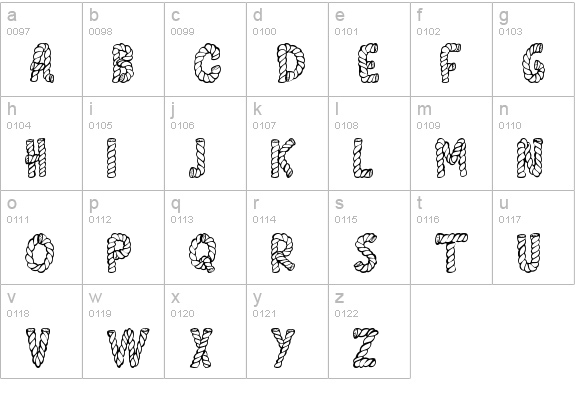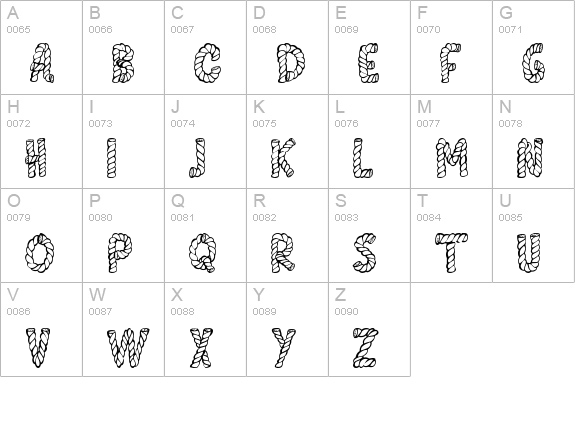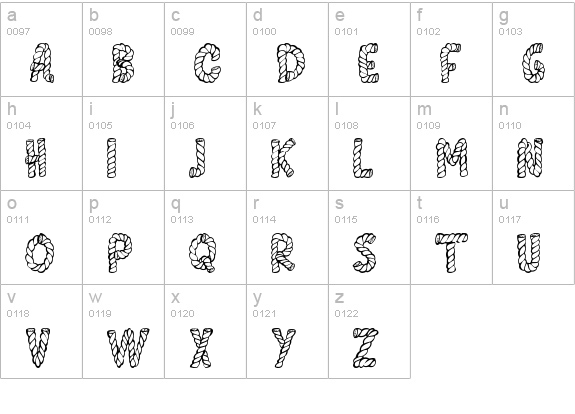
AlphaRope Font Details
Introducing AlphaRope font, a unique and eye-catching typeface that is sure to make your designs stand out. This font features a stylish and modern design with a touch of playfulness, making it perfect for a wide range of projects. With its bold and distinctive lettering, AlphaRope is ideal for branding, advertising, posters, logos, and more. What's even better is that AlphaRope font is completely free to download at FontsMarket.com. Yes, you read that right! You can get your hands on this amazing font at no cost, allowing you to add a touch of creativity to your projects without breaking the bank. So why wait? Head over to FontsMarket.com now and start using AlphaRope font to take your designs to the next level.